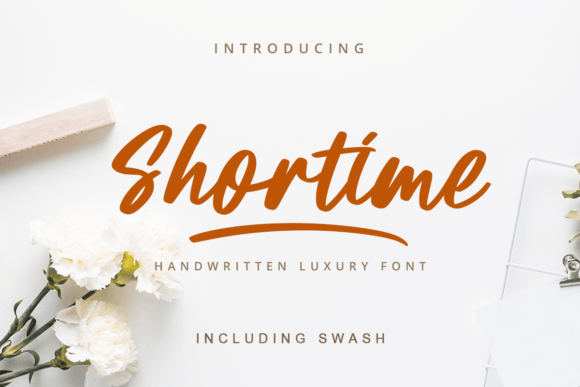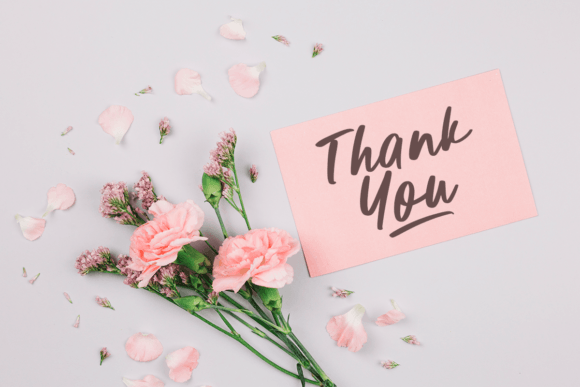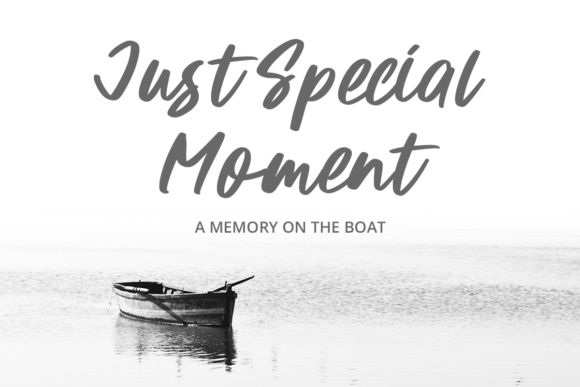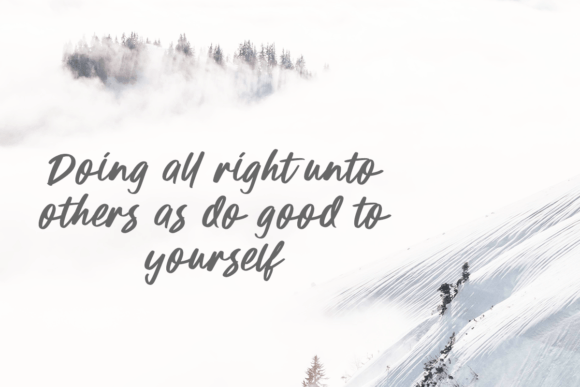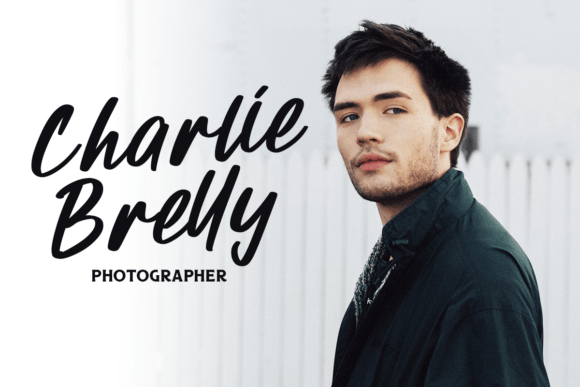
About Shortime Font
“Shortime: Where Luxury Meets Handcrafted Elegance
Step into the realm of sophistication and elegance with Shortime, a luxurious handwritten font designed to elevate your creative projects to new heights. With its natural and flowing style, Shortime brings a touch of opulence to invitations, quotes, T-shirt designs, greeting cards, logos, and a myriad of other applications. As you explore the exquisite beauty of Shortime, you’ll discover a font that seamlessly merges luxury and handcrafted elegance, making it the ideal choice for those seeking a refined and upscale aesthetic.
What sets Shortime apart is its innate sense of luxury. Each stroke of the handwritten letters exudes a timeless elegance, capturing the essence of opulence in its most authentic form. Imagine using Shortime for your invitations, where its luxurious script adds a touch of glamour to wedding invitations, gala invitations, or exclusive events. Picture it adorning quotes, infusing them with a sense of grandeur that resonates with readers, leaving a lasting impression. Visualize it gracing T-shirt designs, creating fashion statements that exude sophistication and style. With Shortime, your creative projects are transformed into luxurious masterpieces, captivating viewers with their refined charm.
Shortime’s natural style becomes a testament to the artistry of handcrafted elegance. Its flowing letters evoke a sense of effortless grace, as if each character were meticulously crafted by a master calligrapher. The font’s versatility shines through in various applications, whether it’s enhancing greeting cards with its luxurious touch or bestowing logos with an aura of exclusivity. In the realm of branding, Shortime becomes a symbol of sophistication, aligning your brand with the highest standards of elegance and refinement.
Furthermore, Shortime is not merely a font; it’s an experience—a journey into the world of luxury and timeless beauty. As you integrate Shortime into your creative projects, you embark on a visual odyssey where every design element exudes opulence and sophistication. Its natural flow and handcrafted elegance transform ordinary designs into extraordinary works of art, capturing the essence of luxury in every curve and loop.
Embrace Shortime as your passport to a world of luxury and elegance. Let its natural style become the hallmark of your most prestigious projects, setting them apart with an aura of opulence. Whether you’re crafting invitations, quotes, T-shirt designs, greeting cards, logos, or any other creative content, Shortime elevates your work to unparalleled heights, leaving an indelible mark of luxury on your audience.”